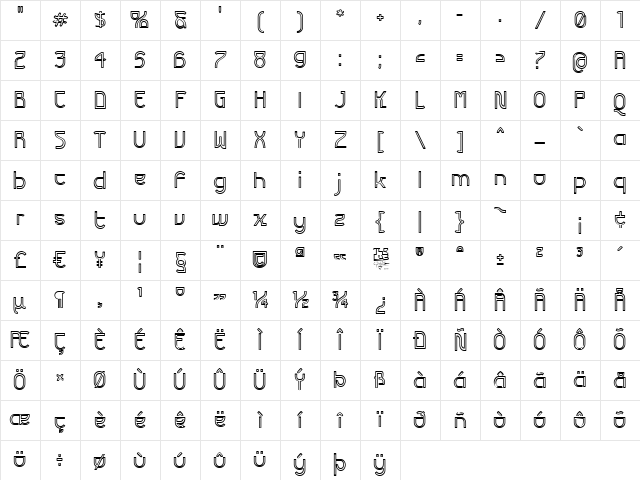
Futurex Variation Alpha Hollow Regular
Designer: Graham Meade and Apostrophic Laboratories
Design Context for Futurex Variation Alpha Hollow
Futurex Variation Alpha Hollow has a distinctly futuristic character, with geometric precision and clean angles that feel at home in technology, gaming, and sci-fi contexts.
Pro Tip: Try Futurex Variation Alpha Hollow with generous letter-spacing in UI labels and navigation - the geometric forms benefit from room to breathe.